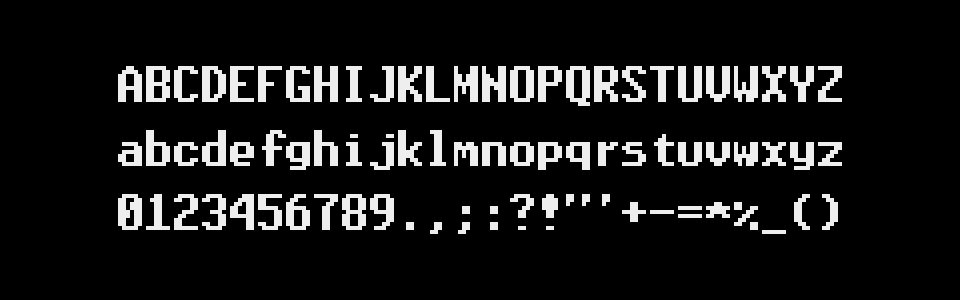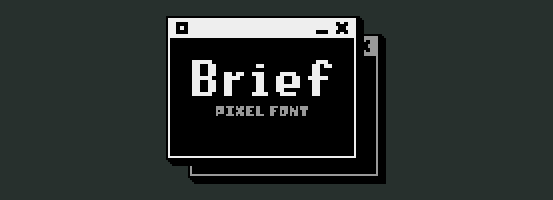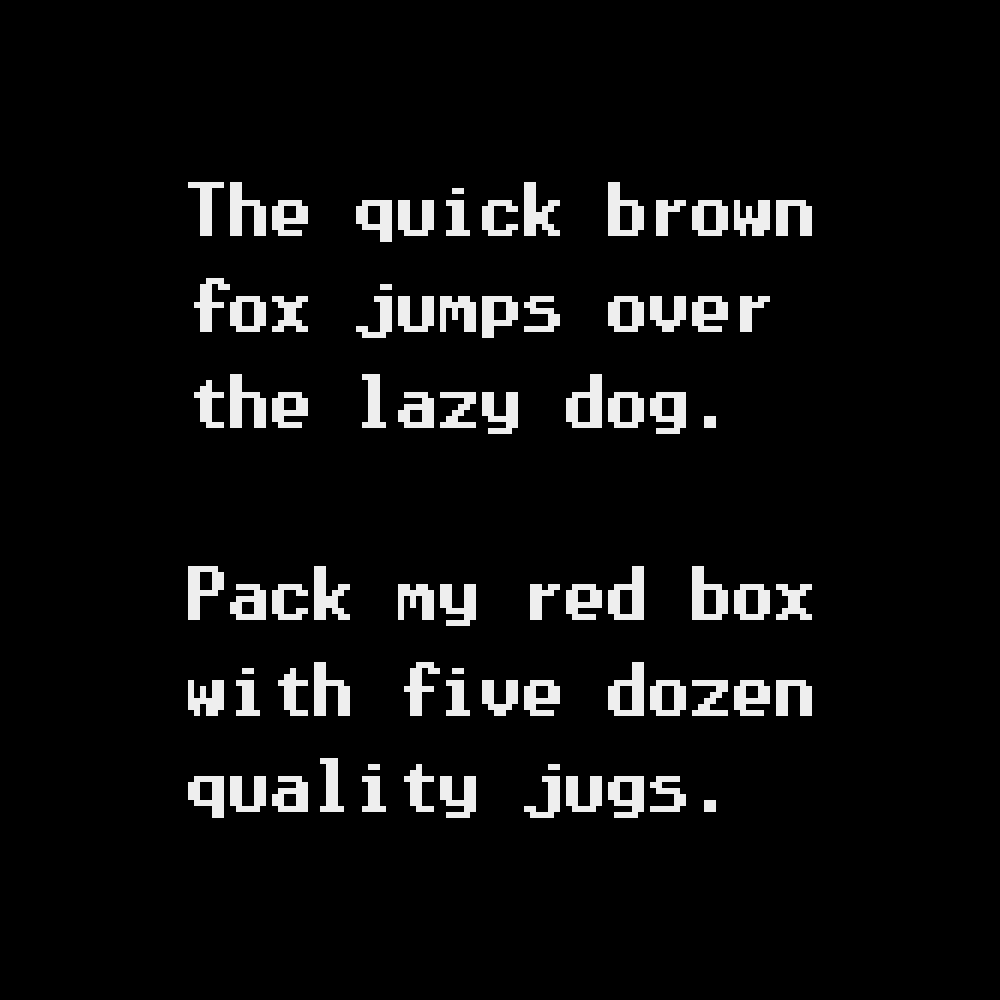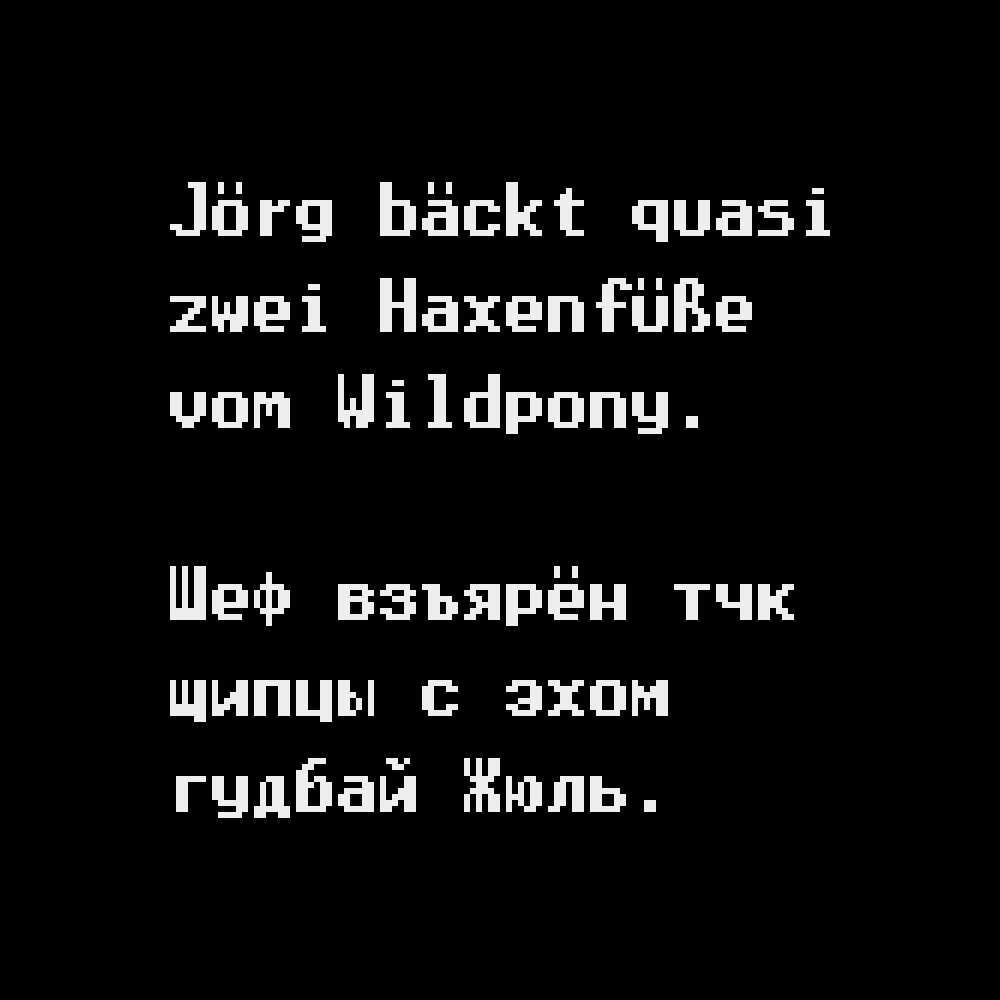
Pixel Font - BRIEF
Brief is a straightforward, monospace, 9px tall pixel font!
Full Character Set:
ABCDEFGHIJKLMNOPQRSTUVWXYZ
abcdefghijklmnopqrstuvwxyz
0123456789.,;:?!"'+-=*%_()
[]{}~#&@©®™°^`|/\<>…€$£¢¿¡“”‘’«»‹›„‚·• ÀÁÂÄÃÅĄÆÇĆÐÈÉÊËĘĞÌÍÎÏİŁÑŃÒÓÔÖÕŐØŒŚŞẞÞÙÚÛÜŰÝŸŹŻàáâäãåąæçćðèéêëęğìíîïıłñńòóôöõőøœśşßþùúûüűýÿźżАБВГҐДЕЁЄЖЗИІЇЙКЛМНОПРСТУФХЦЧШЩЪЫЬЭЮЯабвгґдеёєжзиіїйклмнопрстуфхцчшщъыьэюя█
Supported languages:
English, French, Italian, German, Spanish, Portuguese, Danish, Swedish, Norwegian, Icelandic, Hungarian, Polish, Turkish, Russian, Ukrainian…
new! v1.1: fixes to some Cyrillic letters.